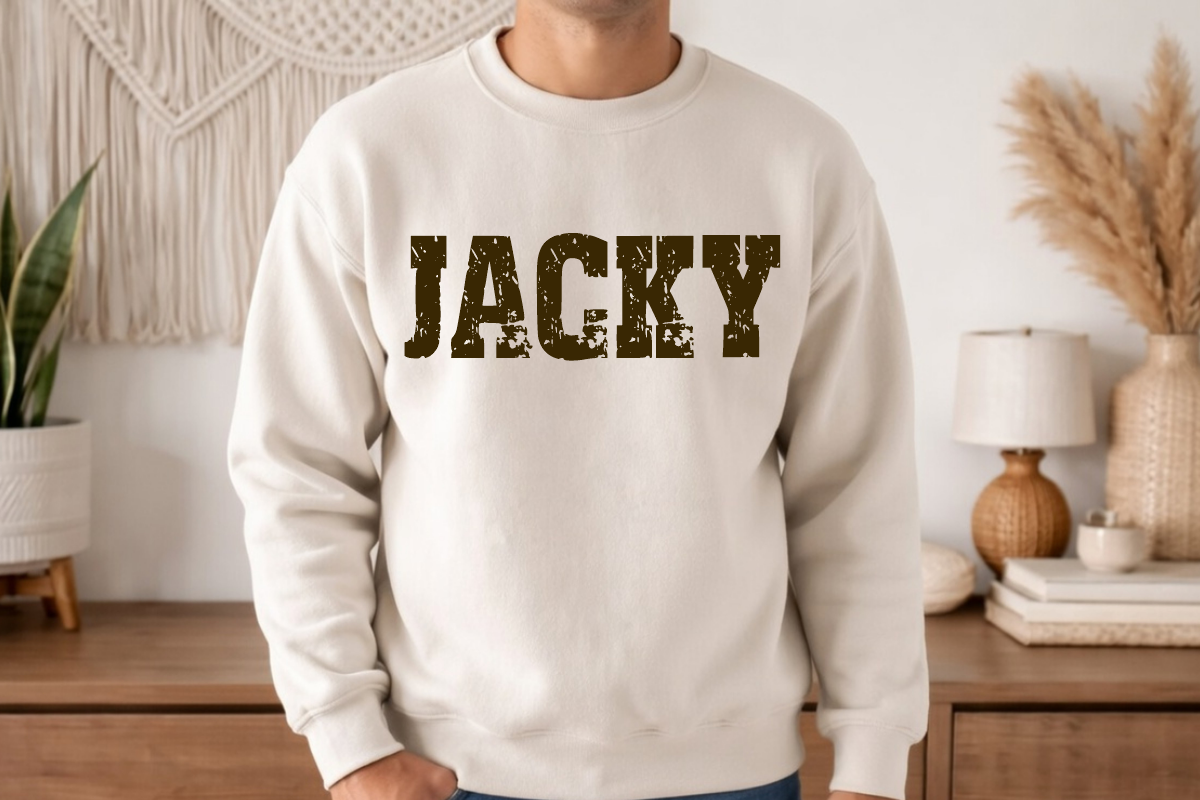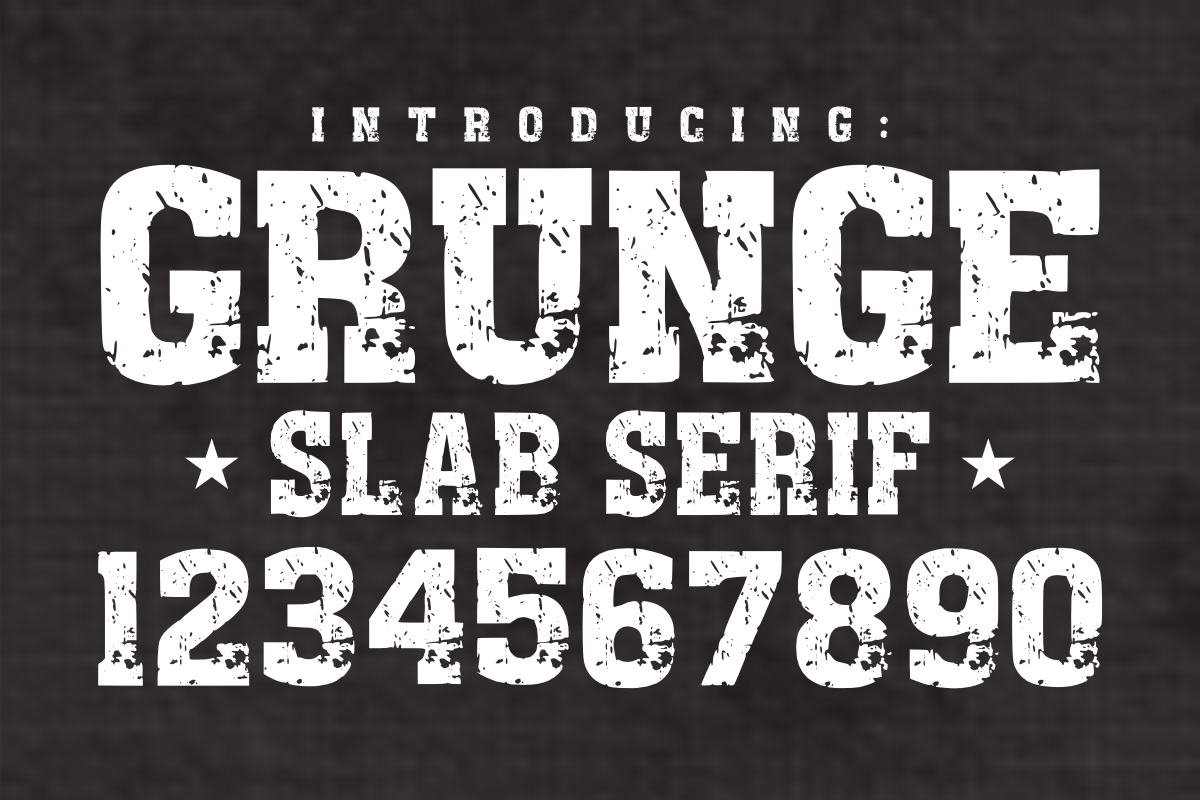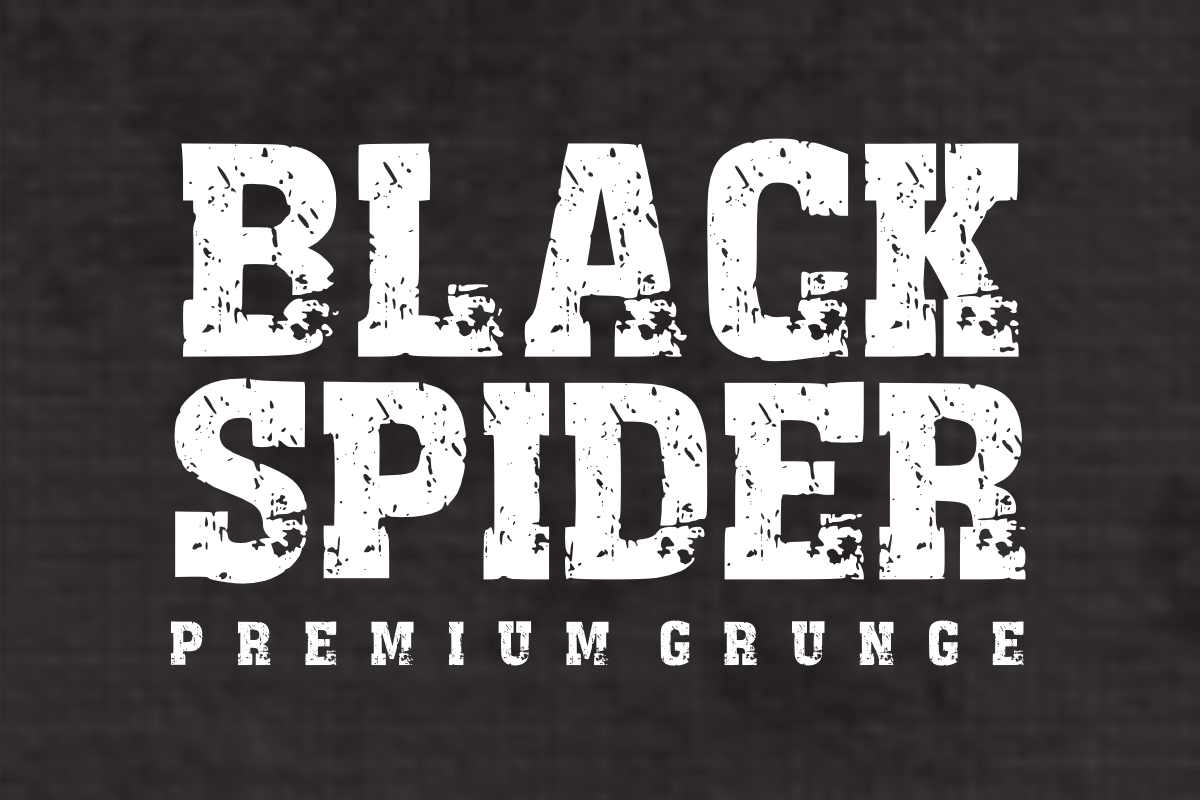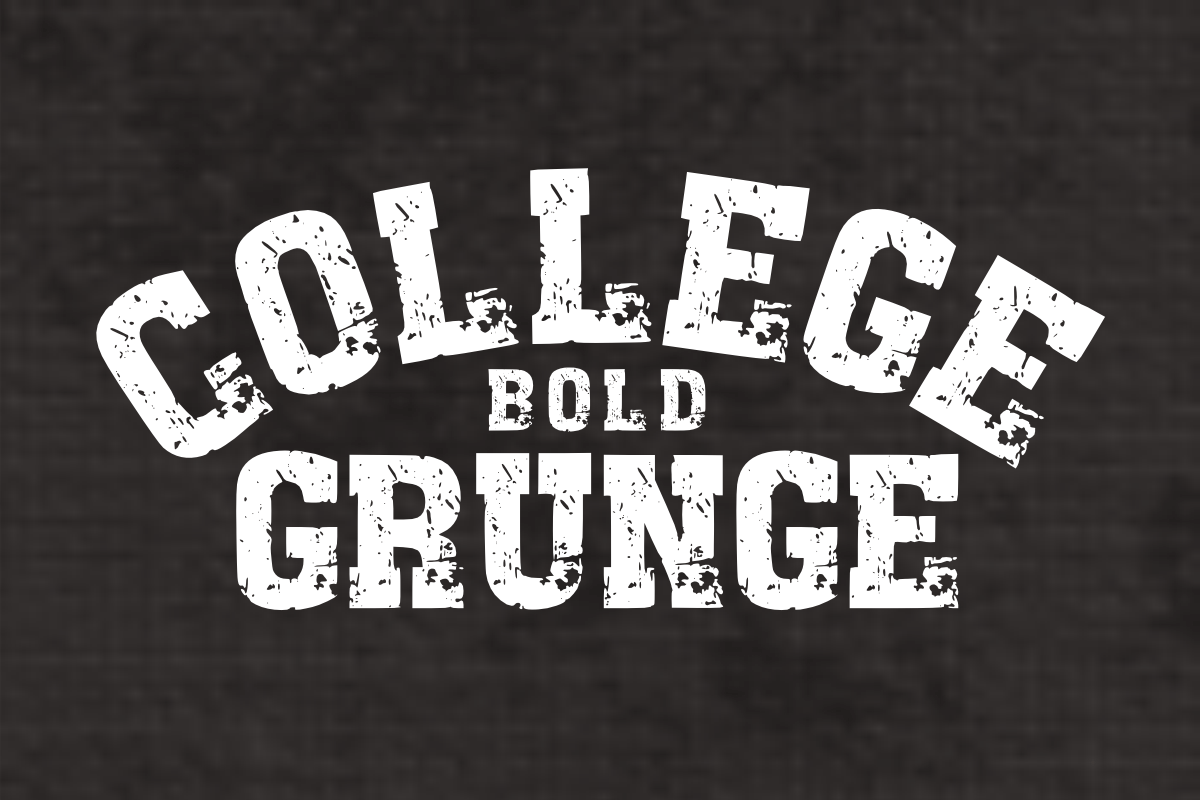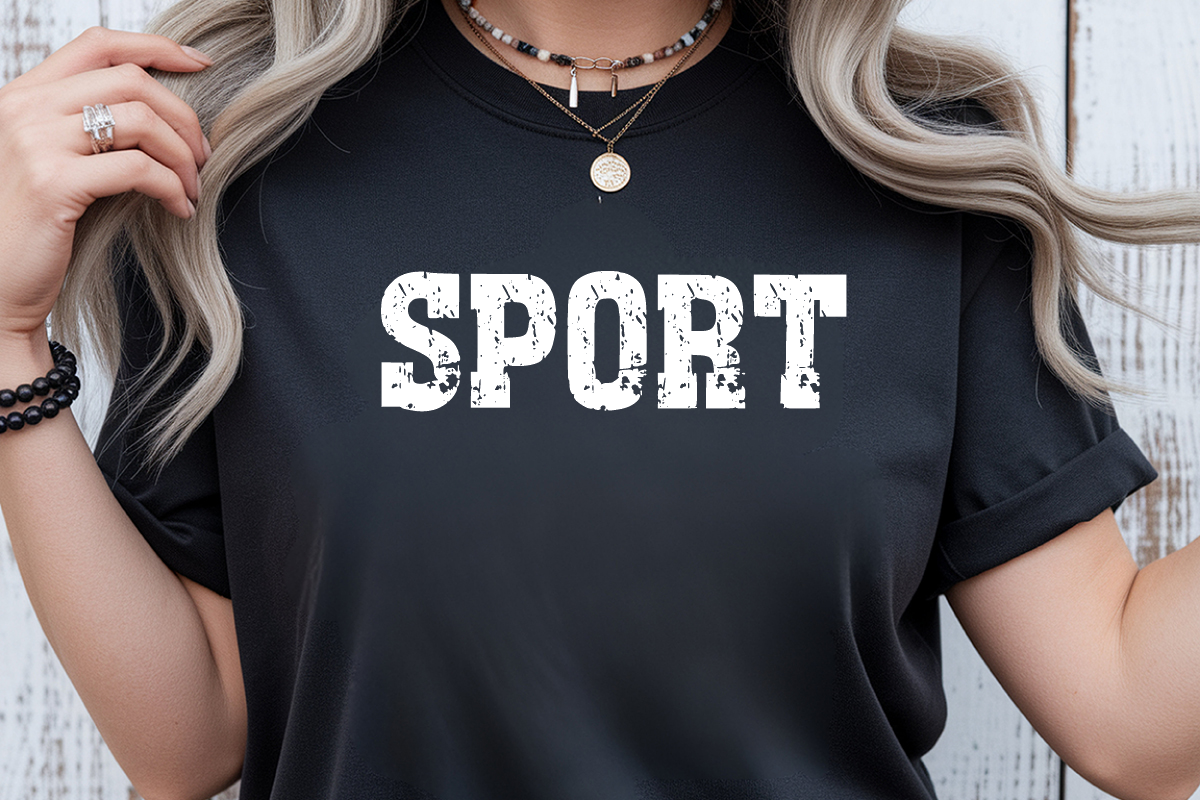
Grunge Slab Serif - Display Font
🔥 Hey Designers! Meet Grunge Slab Serif - The Ultimate Distressed Display Font! 🛠️
Ready to add some raw energy, rugged textures, and bold character to your next project? Grunge Slab Serif is a premium display font featuring heavy block letters with a beautifully weathered, stamped, and distressed texture. It perfectly captures the gritty, vintage aesthetic of old-school workwear, military gear, and rock 'n' roll posters!
It’s loud, tough, and meticulously crafted for creators who want their designs to feel authentic, bold, and packed with textured personality.
_ 🔠 _\Bold Uppercase Letters (A-Z)\\* – Solid, high-impact slab serif characters with built-in grunge textures.
_ 🔢 _\Matching Numbers (0-9)\\* – Perfect for vintage years, industrial dates, or athletic numbering.
_ 🔣 _\Simple Symbols & Punctuation\\* – Essential basics to finish your rugged layouts flawlessly.
\* 👕 Rugged T-Shirts, Biker Apparel, Heavy-Duty Workwear & Streetwear Merch
\* 🎸 Rock Album Covers, Concert Posters, Fitness Gym Branding & Event Flyers
\* 📦 Industrial Packaging, Craft Brewery Labels, Barber Shop Logos & Badges
\* 📱 High-Contrast Social Media Graphics, YouTube Thumbnails, and Bold Editorial Headers